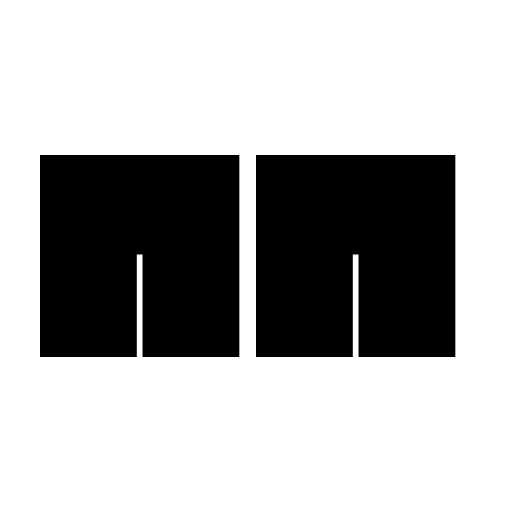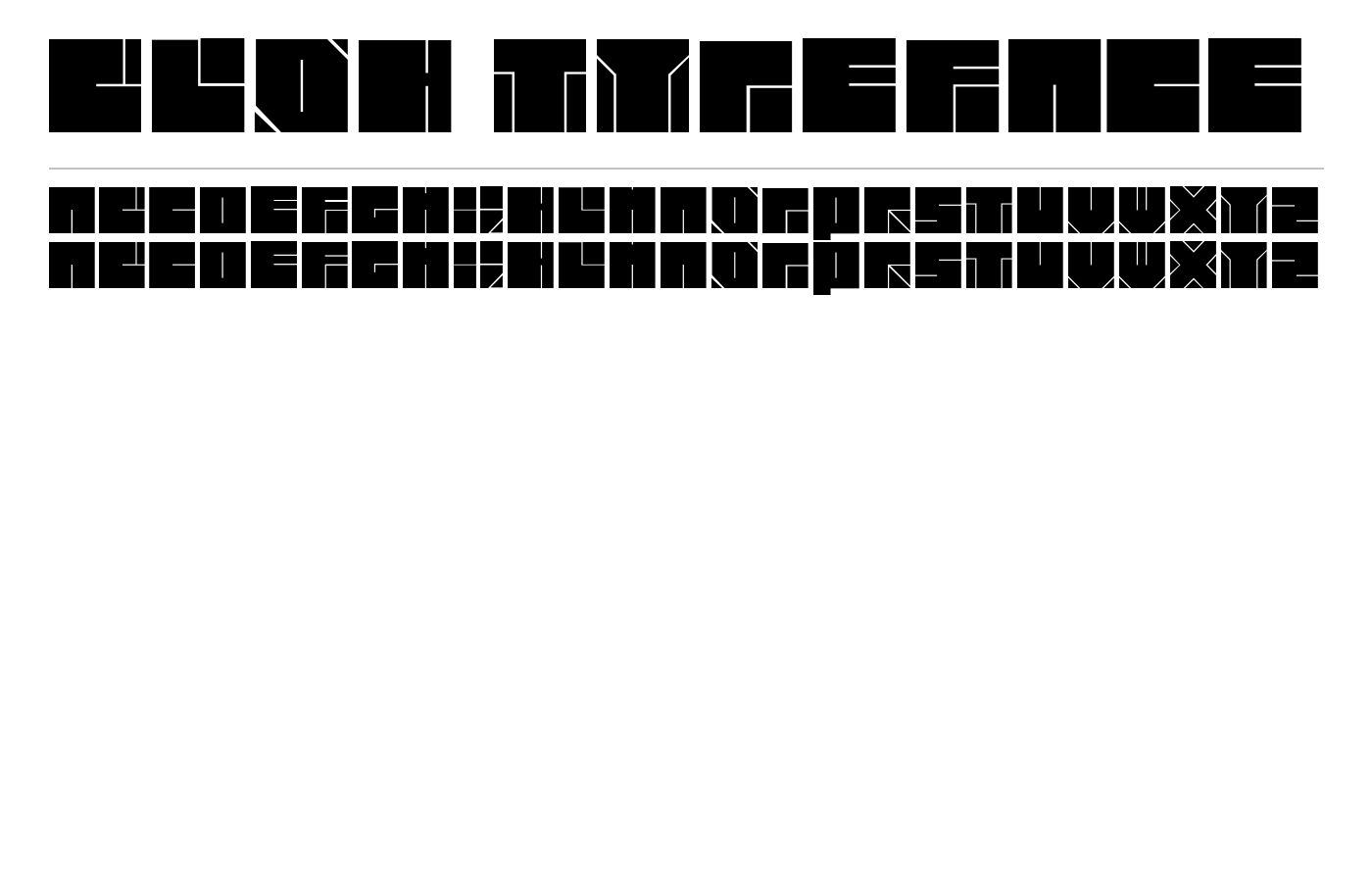
Blok Typeface is a bold, geometric sans serif font characterized by its heavy weight and blocky, condensed letterforms that create a strong visual impact. Its rigid, square shapes and sharp angles give it a modern, industrial feel, making it ideal for attention-grabbing headlines, logos, and display use where a futuristic or tech-inspired style is desired. This font works best in contexts where boldness and readability at large sizes are key, such as posters, branding, and digital media with a contemporary edge.